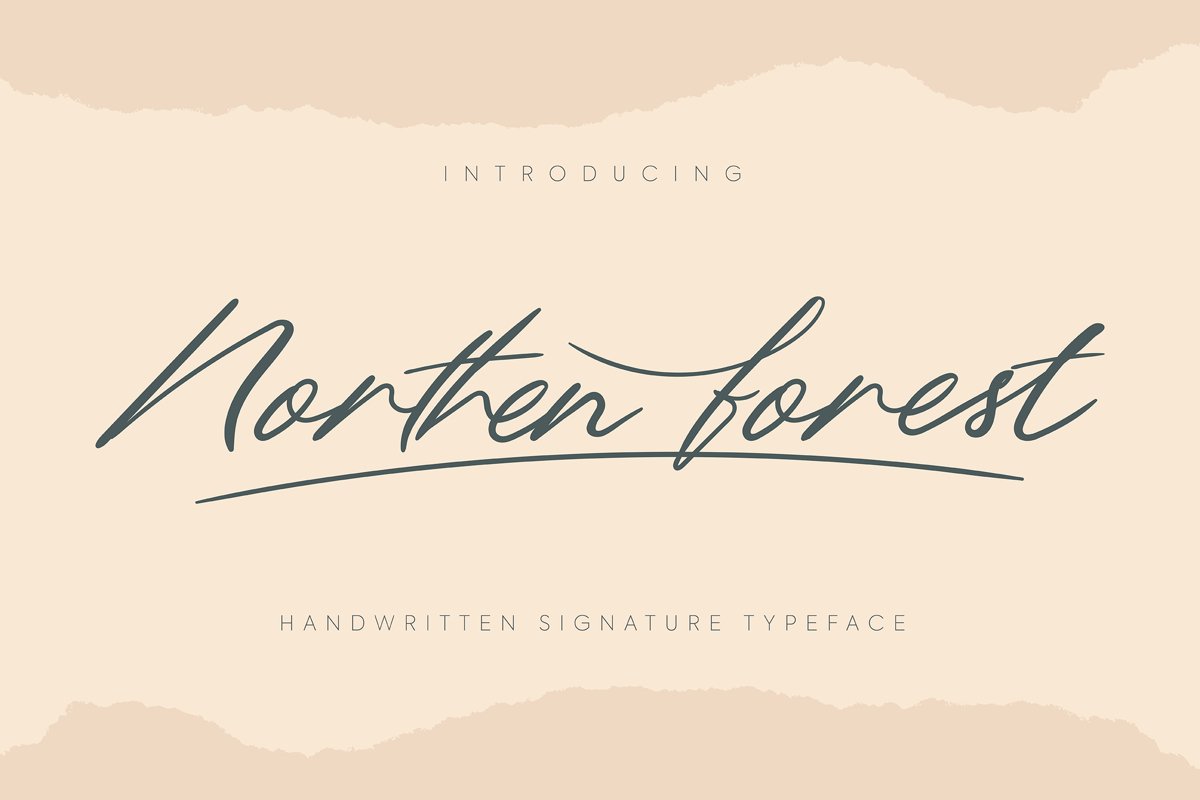
Northern Forest | Handwritten Signature Typeface
Northern Forest
**Northern Forest | Handwritten Signature Typeface** with a calligraphy style, So beautiful on invitation like greeting cards, branding materials, business cards, quotes, posters, and more!
* Tons of glyphs
* Alternates and Ligatures
* Fonts include **Multilingual Support**